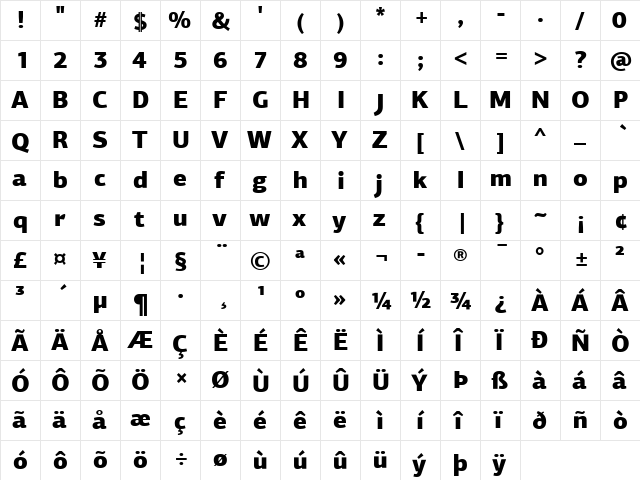
PF Agora Sans Pro Black
| Foundry | Parachute蠗orldwide |
| Designer | Panos Vassiliou |
Design Context for PF Agora Sans Pro Typeface
PF Agora Sans Pro is a composed and adaptable typeface that performs quietly and consistently across a wide range of design contexts.